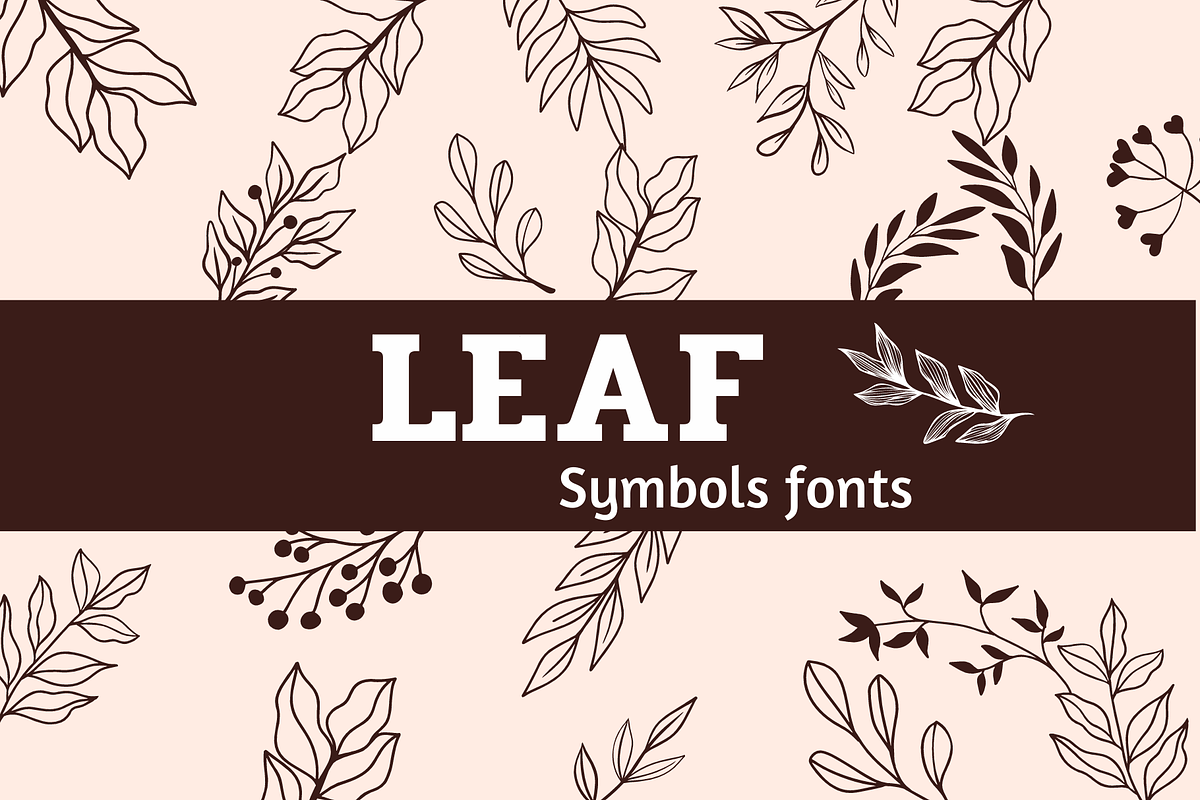
Please note, to use this font for commercial purposes, you must purchase the full version. Leaf Font is a beautifully crafted typeface that brings the essence of nature to your designs. With its organic, flowing shapes and subtle leaf-like details, it’s perfect for projects related to the environment, organic products, eco-friendly brands, and more. Whether you're designing logos, invitations, or promotional materials, Leaf Font adds a fresh, natural feel to any project. Test it out and enjoy free download access for personal use. Experience the beauty of Leaf Font Free Download before purchasing the commercial license. Add an earthy and elegant touch to your designs with the unique charm of Leaf Font.